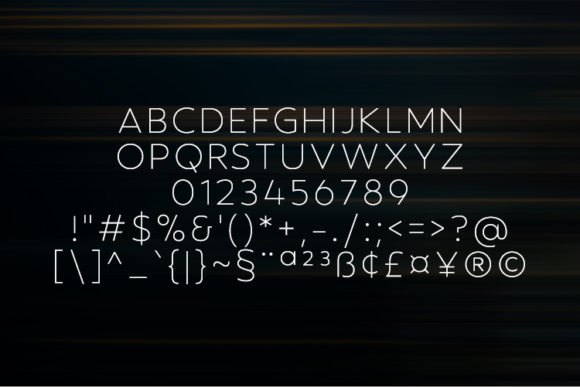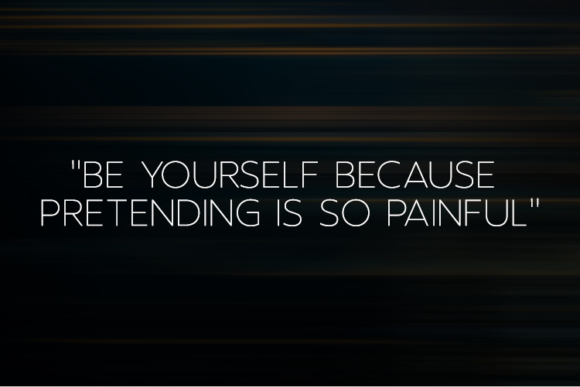
Introduction to Rolton Font
Rolton is a thin and distinct sans serif font.
Suitable to a wide variety of designs due to its neat and simple style, Rolton has the potential to become your favorite go-to font, no matter the occasion .
Key Features of Rolton Font
Why Choose Rolton Font?
Rolton Font offers exceptional quality and versatility, making it a valuable addition to your design toolkit. Whether you’re creating for personal projects or commercial use, Rolton Font delivers professional results.